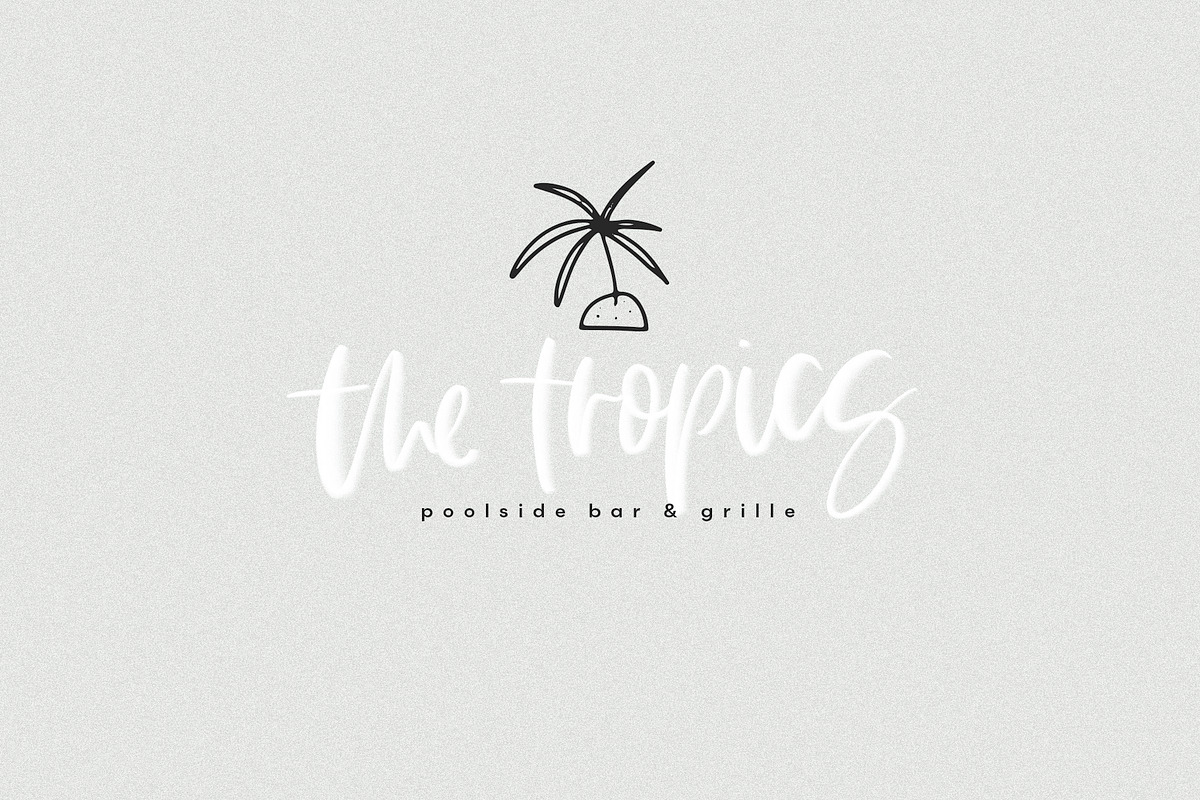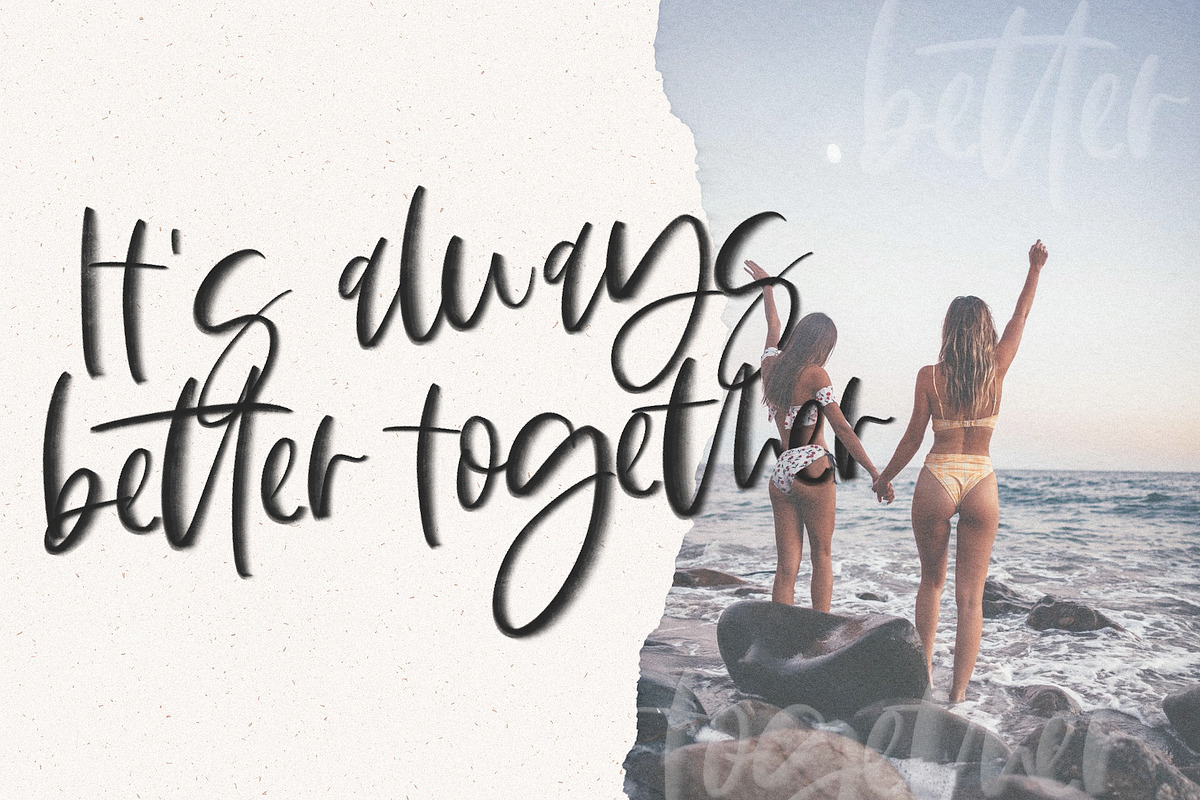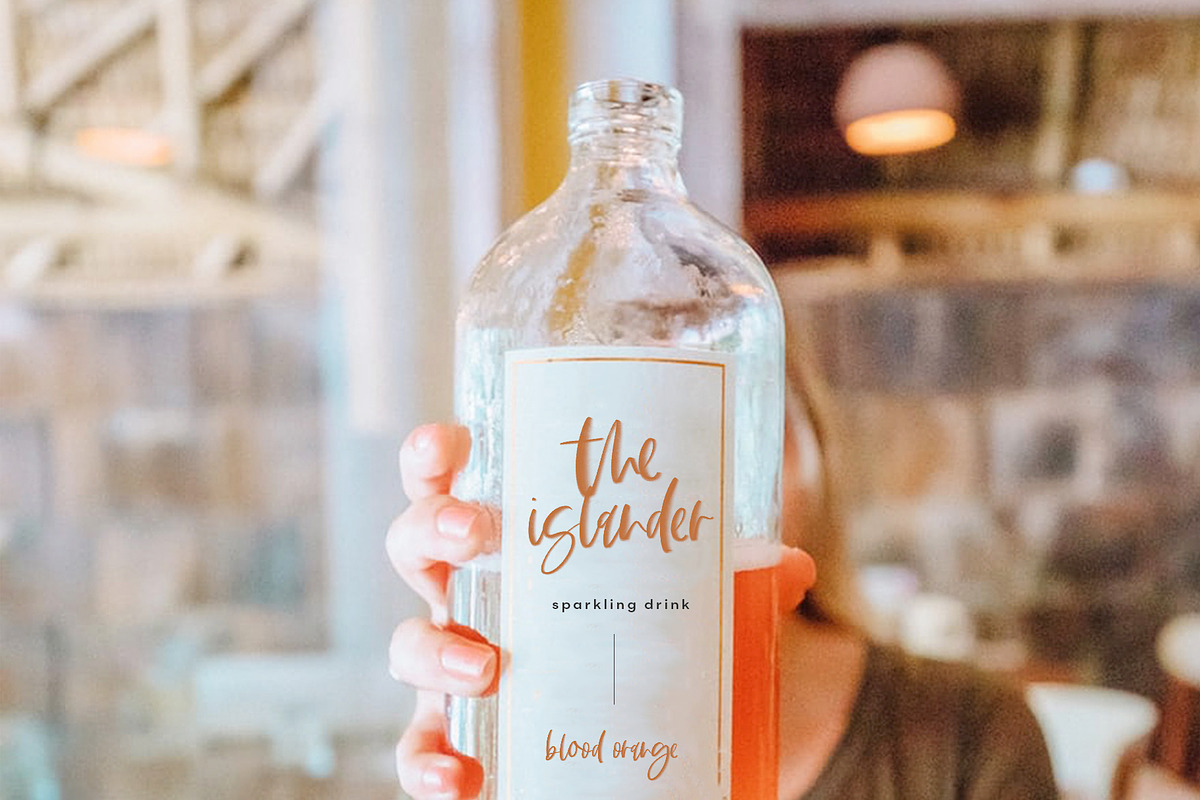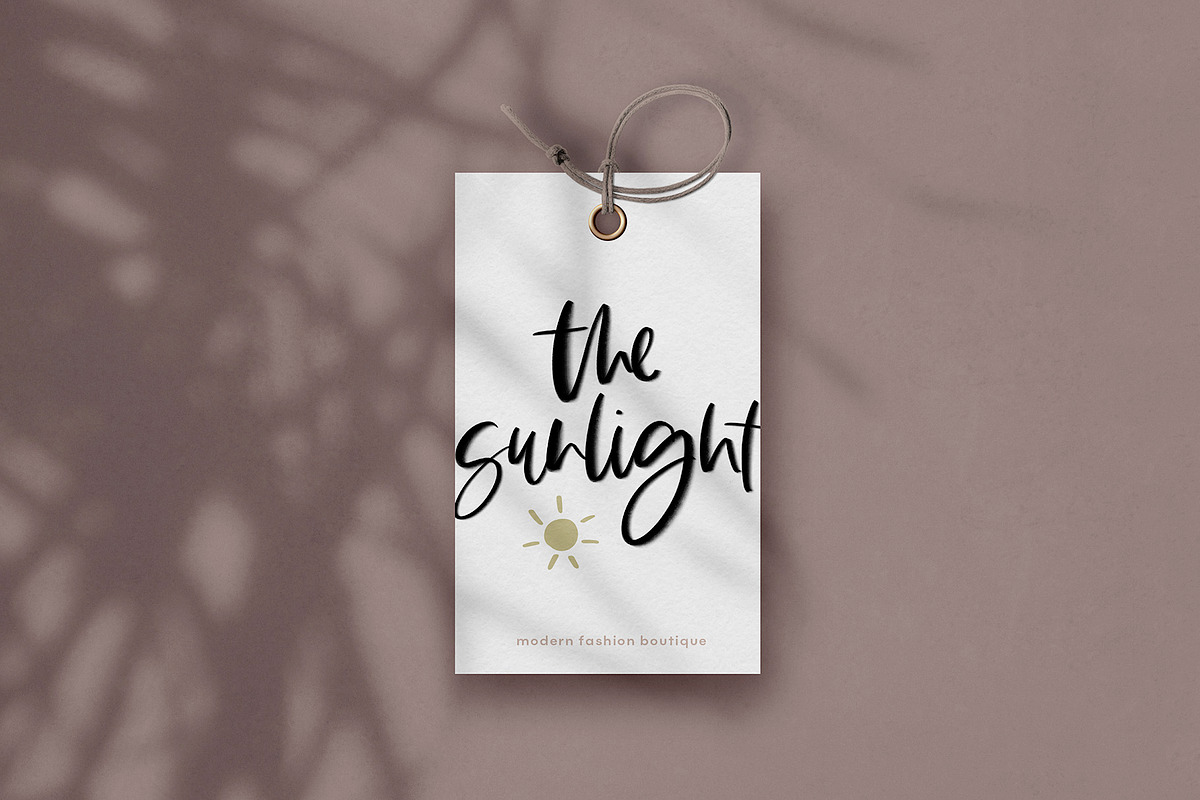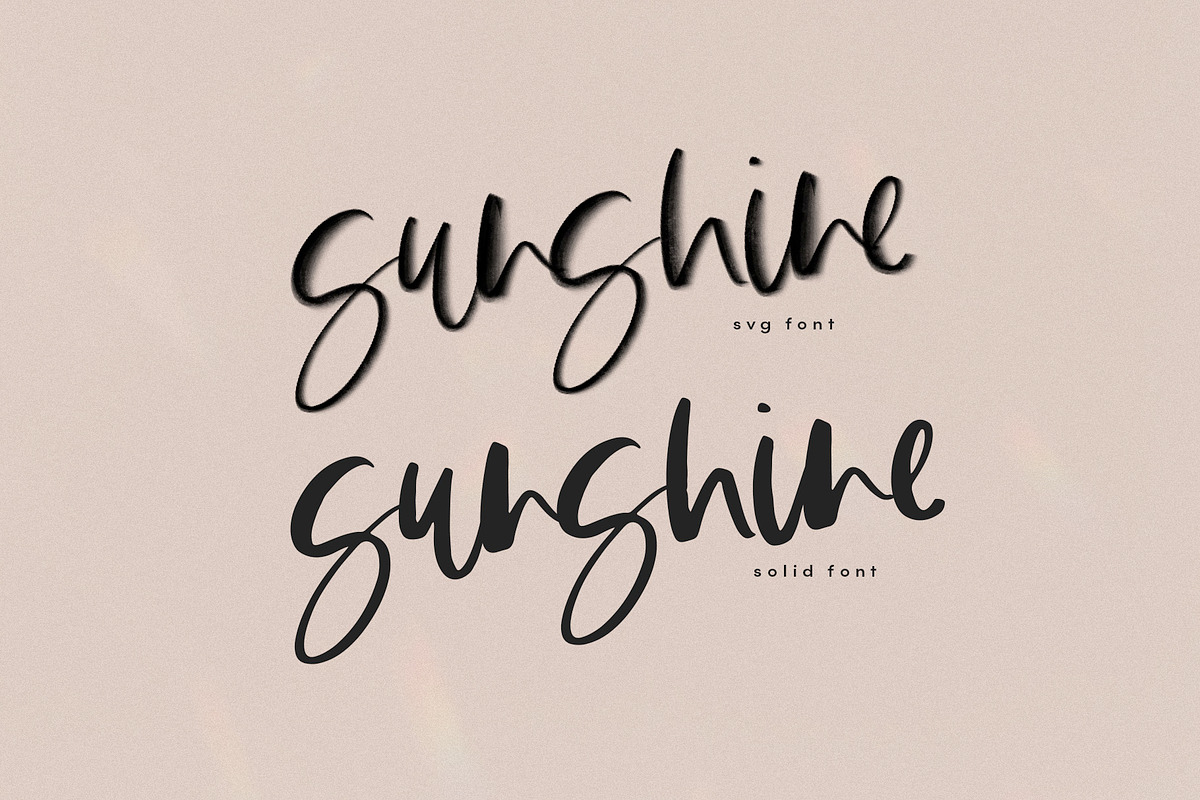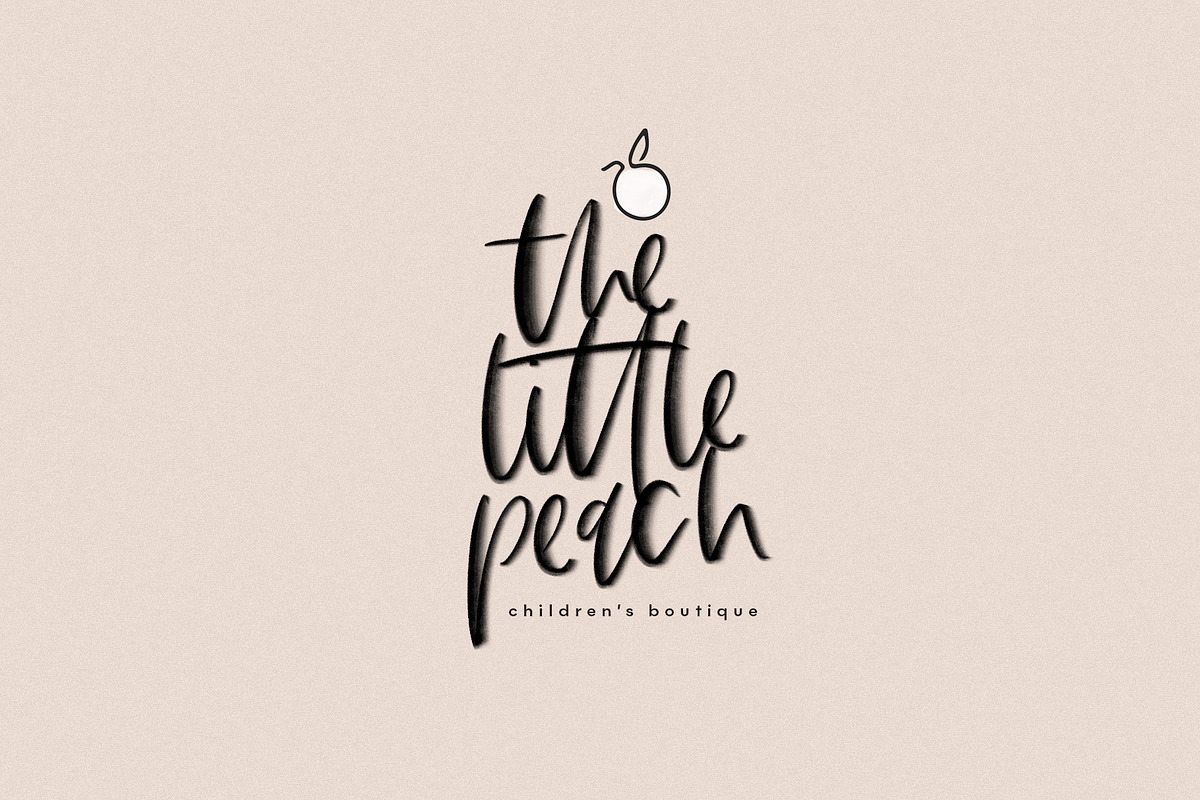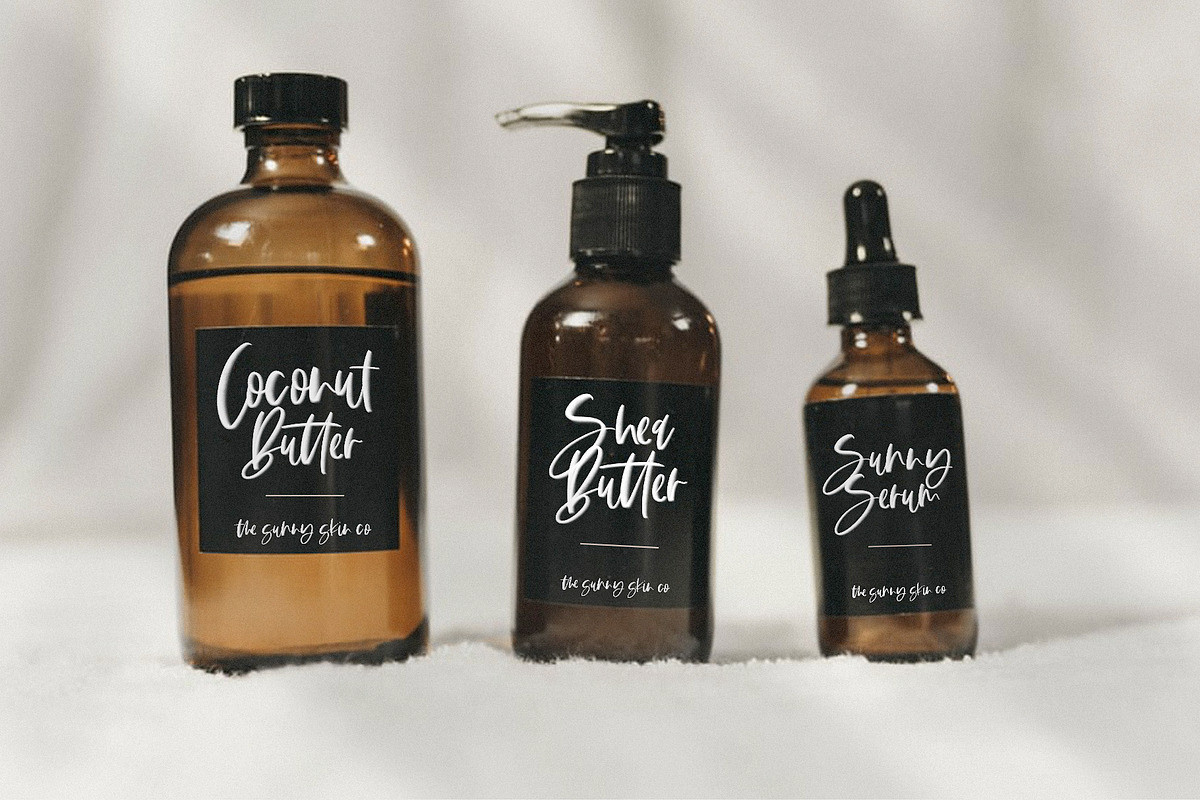
The Sunlight | SVG Script Font
The Sunlight is handwritten font with a signature style.
This modern calligraphy style font comes in both SVG and regular OTF formats.
Each letter has been drawn by hand keeping the untouched texture for the SVG font. If you are unable to access SVG fonts, a solid style is accessible.
The Sunlight is perfect for modern projects, headings, blogs, logos, brandings, invitations and more!